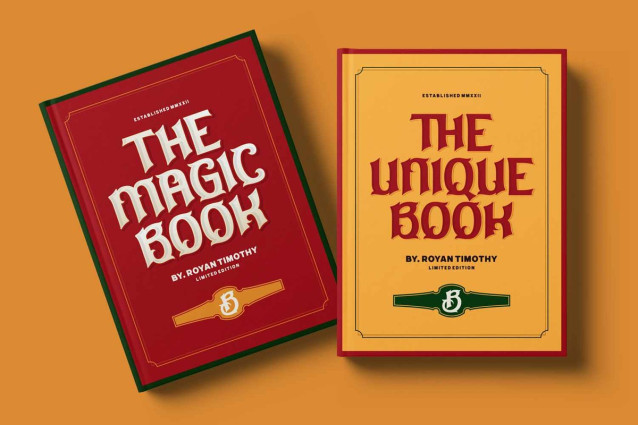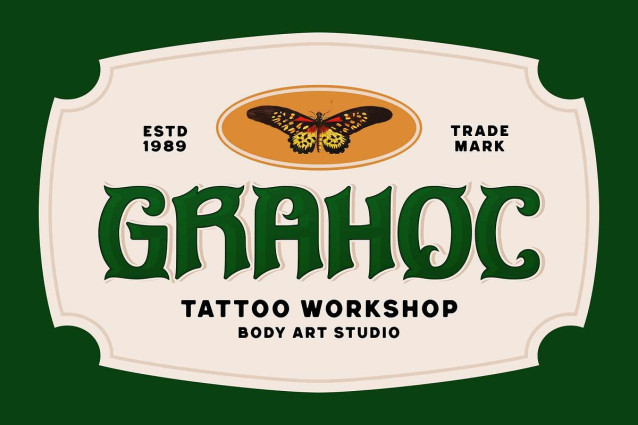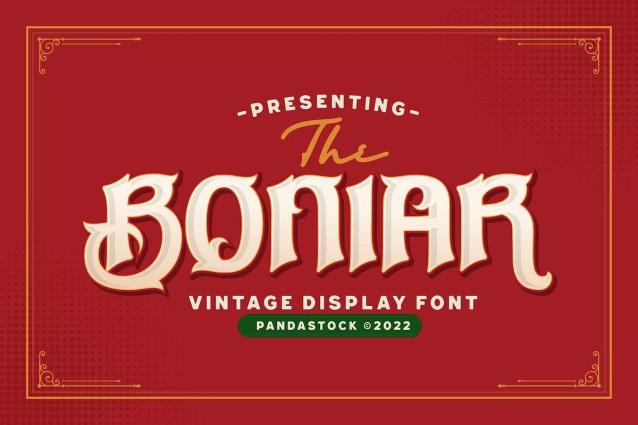
Boniar Display Font is a ornamental display font brings a vintage Gothic flair to your designs. Featuring sharp, angular serifs, dramatic contrast, and intricate curves, it evokes the elegance of medieval calligraphy with a modern twist.
Whether you’re creating a vintage pub sign, festival poster, fantasy book cover, or heritage inspired branding, this font perfect choice! Its ornate details and bold shapes make it ideal for both print and digital projects that need to stand out.